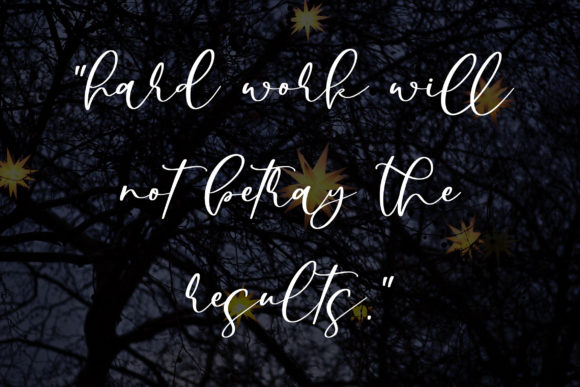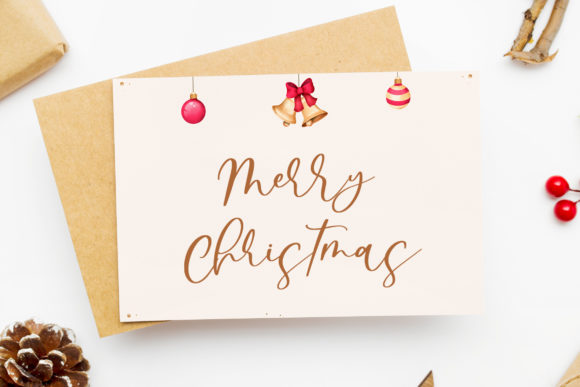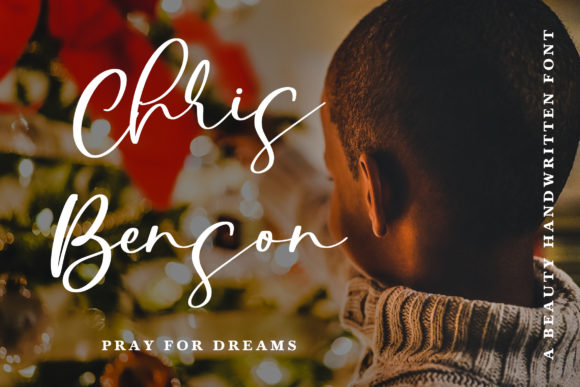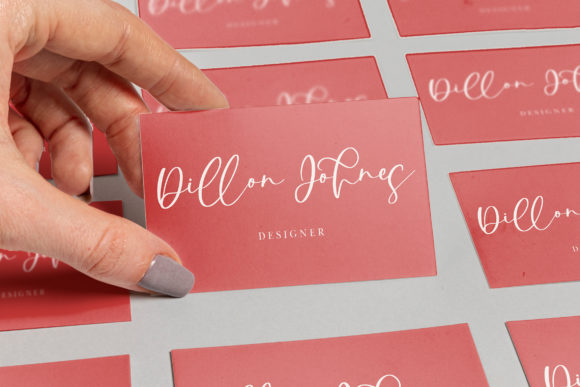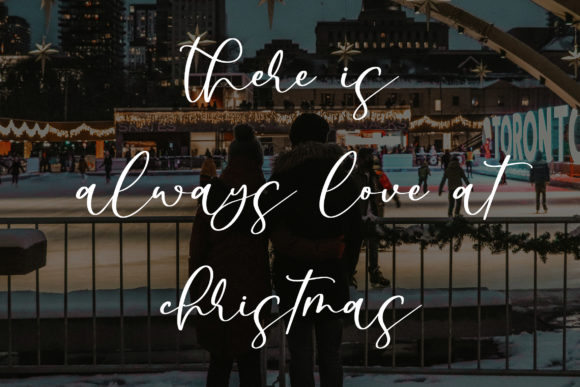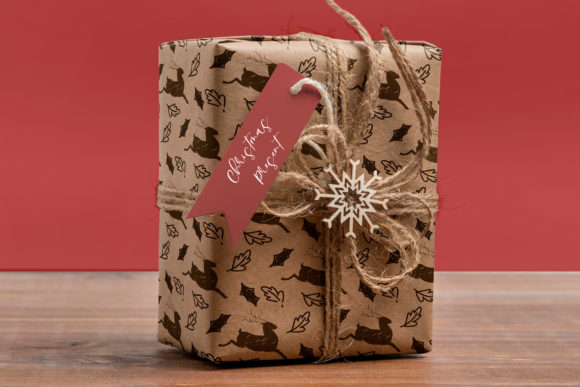
Introduction to Higher Dreams Font
Have you ever been working on a creative project, and just as you’re about to finalize the design, you feel like something’s missing? The words aren’t quite dancing along the baseline the way you envisioned? That’s where the perfect font comes in – and for designers, the Higher Dreams Font is a game-changer.
With its charming, playful characters that seem to leap off the page, the Higher Dreams Font is a design resource that can elevate your most creative ideas to new heights. Whether you’re working on a marketing campaign, a blog post, or a social media graphic, this high-quality font is sure to make your content stand out.
Key Features of Higher Dreams Font
- High-quality design resource with a modern and elegant aesthetic, perfect for creative projects.
- Features a transparent background, allowing for seamless integration with any design or background.
- Unique characteristics include a clean and minimalist design, making it suitable for logos, headings, and body text.
- Perfect for designers and artists working on creative projects, such as branding, advertising, and editorial design.
Honest Review: Higher Dreams Font
I recently had the chance to experiment with the Higher Dreams Font, a popular design resource that’s been making waves in the creative community. I was excited to dive in and see what it had to offer.
Here are some of the things that work well with the Higher Dreams Font:
- ✨ Elegant and modern design aesthetic that’s perfect for high-end creative projects.
- ✨ High quality typography that’s easy to read and versatile in its application.
- ✨ Transparent background, making it easy to layer over other design elements.
- ⚠️ Limited font styles and weights, which may limit its versatility in certain projects.
Overall, I was impressed with the Higher Dreams Font’s potential, but it’s essential to consider its limitations before using it in your creative project.
How to Use Higher Dreams Font
The Higher Dreams Font is a high-quality design resource ideal for creative projects. Its unique style and transparent background make it a versatile choice for various applications.
Getting the Most Out of Higher Dreams Font
To get the most out of this font, use it in combination with other design elements, such as images and graphics. Experiment with different font sizes and colors to achieve the desired effect.
The Higher Dreams Font is suitable for various creative projects, including:
- Brochure design
- Infographic design
- Business card design
When to use: Great Vibes Font is suitable for projects that require a more artistic and creative approach, such as magazine covers, wedding invitations, and social media graphics.
Comparison to Higher Dreams Font: While Higher Dreams Font has a more modern and sleek look, Great Vibes Font has a more traditional and handwritten feel, making it a great alternative for projects that require a more personal touch.
Alex Brush Font is a beautiful, elegant font that’s perfect for projects that require a touch of sophistication and refinement. Its transparent background makes it ideal for use on light-colored backgrounds.
When to use: Alex Brush Font is suitable for projects that require a more formal and professional approach, such as business cards, resumes, and wedding invitations.
Q: Is the Higher Dreams Font suitable for high-quality printing?
Yes, the Higher Dreams Font is designed to be high-quality and suitable for printing. The font is carefully crafted to ensure that it looks great on both digital screens and printed materials. Whether you’re designing a business card, brochure, or other marketing materials, the Higher Dreams Font is a great choice for your creative project.